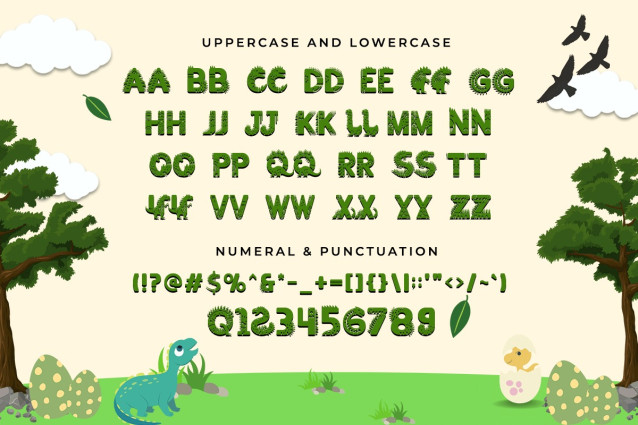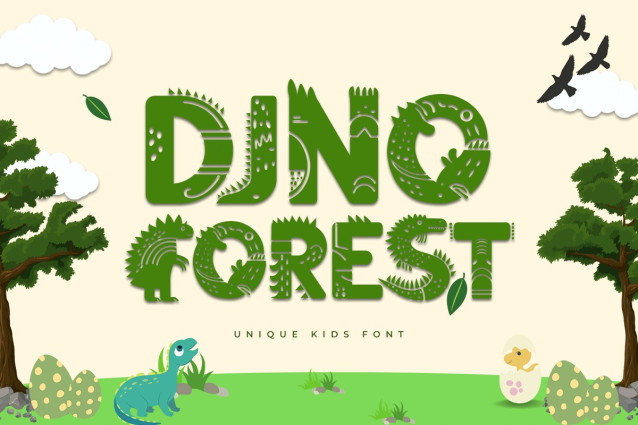
Dino Forest Font
Dino Forest Decorative Kids Font was created to present a cute and pleasant impression to anyone who sees it. This is in line with the characteristics of letters that are unique, have various motifs, and are funny. Each letter in this font has engravings that look very attractive. As the name suggests, Dino Forest Decorative Kids Font has a shape that depicts a dinosaur. This font is suitable for children’s equipment such as clothing items design, because its shape is simple and cute. This type of font is suitable for printing in large sizes and looks good when viewed up close. For those who like a cheerful and cute feel, Little Dino Decorative Kids Font will be the right choice. This font is also suitable for use as a digital font, such as in videos and film titles. This font is suitable when used for children’s equipment such as t-shirts, school bags, sleeping equipment, and many others. Our Display fonts collection is compatible for use as; Figma Fonts, Canva Fonts, Freepik Fonts, and Adobe Fonts. They also function as Windows Fonts and Apple Fonts. For your social media needs, you can use and install fonts in our Espot & Futuristic font collection to use as Instagram Fonts, Facebook Fonts, and Twitter Fonts.